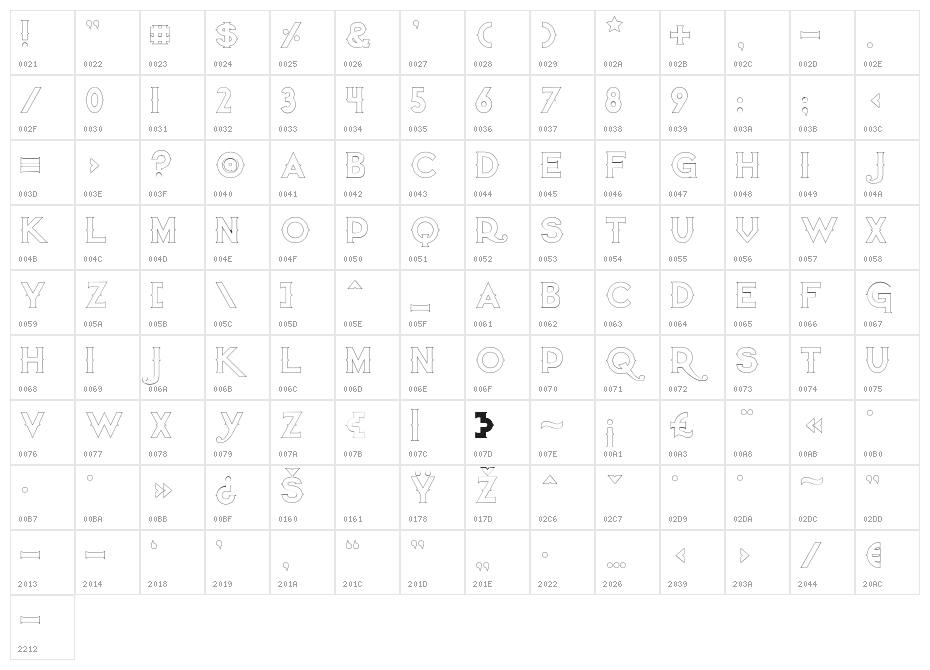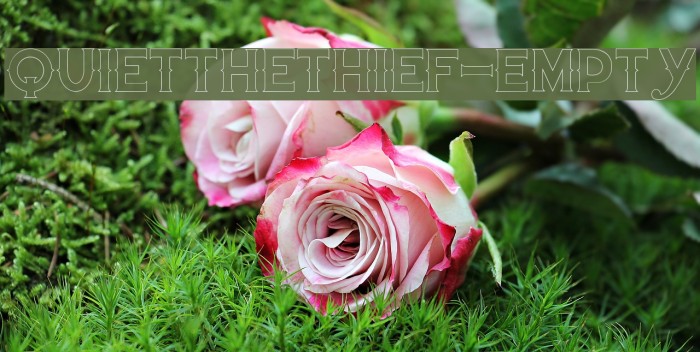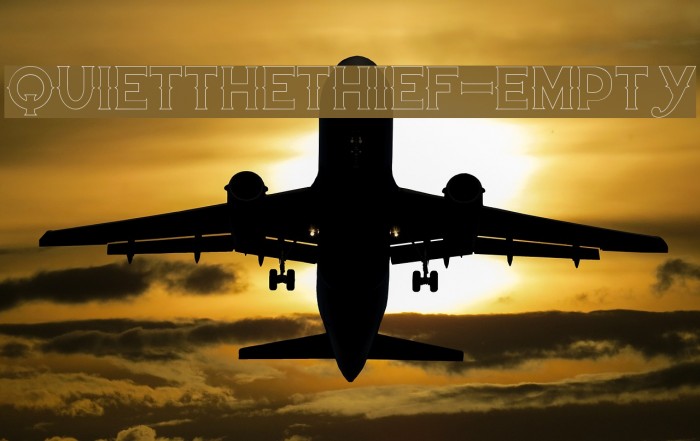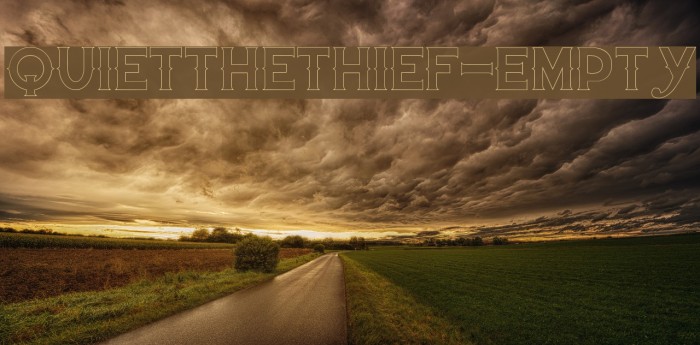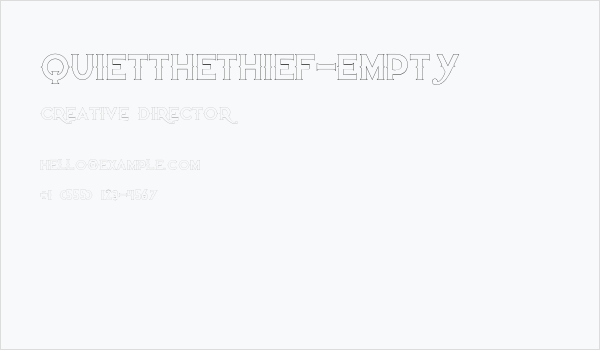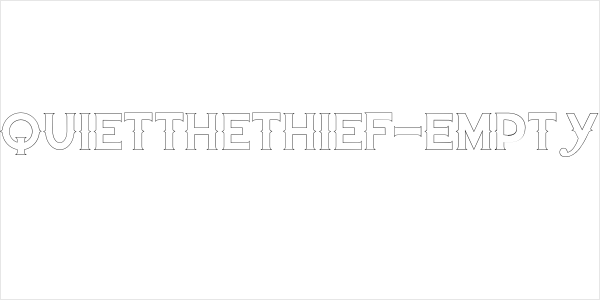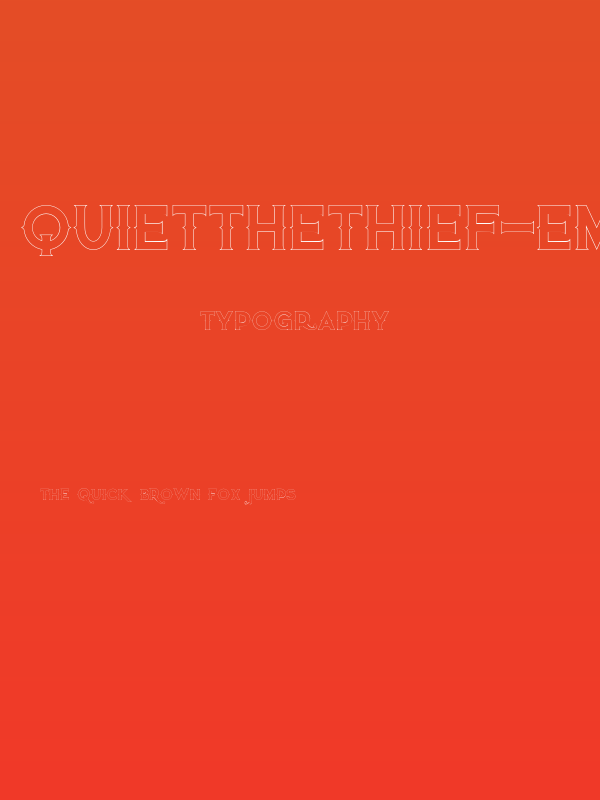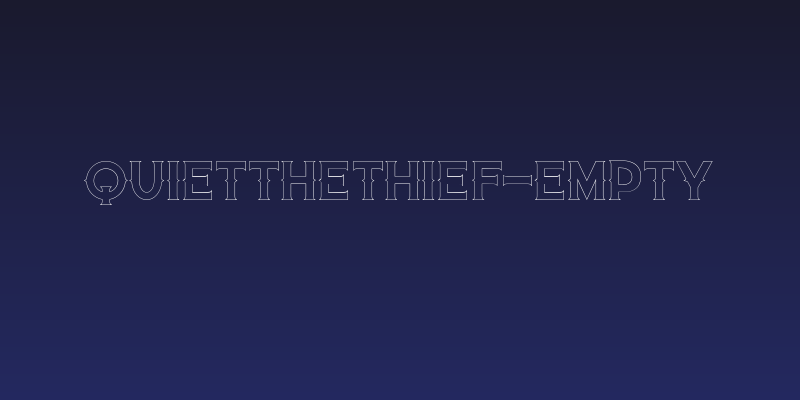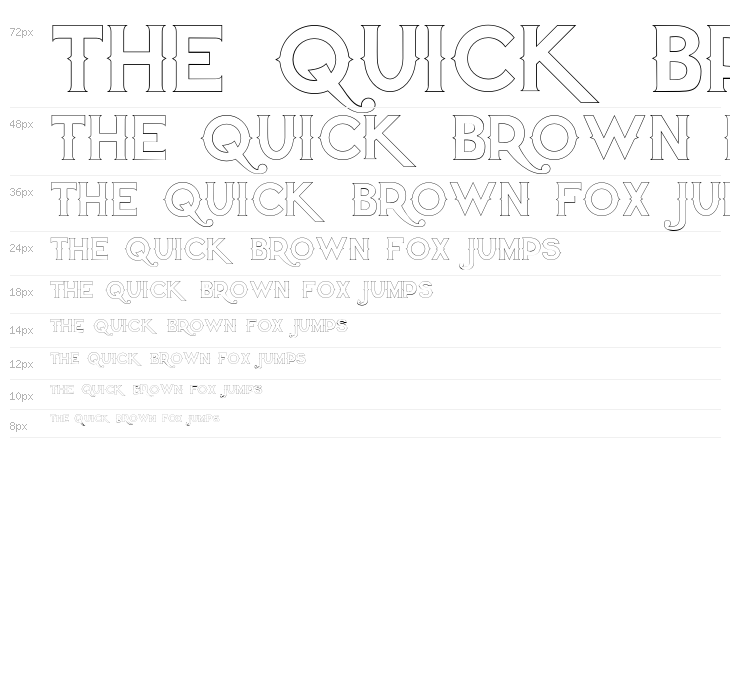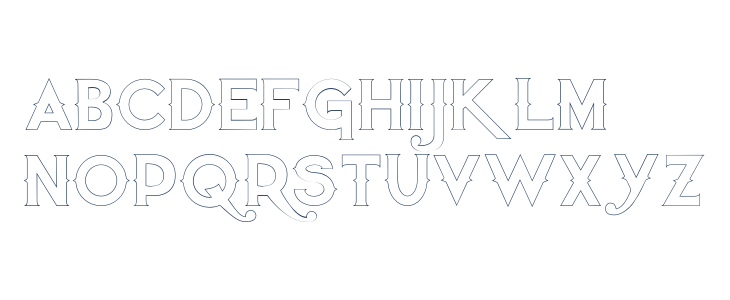
QuiettheThief-Empty Font
QuiettheThief-Empty Description
This font features a bold and geometric style with a distinct outline effect, giving it a modern and edgy appearance. The characters are uppercase and lowercase, with a consistent stroke width that creates a cohesive look. The numbers and special characters maintain the same stylistic elements, ensuring uniformity across all glyphs. The font's design is clean and structured, making it suitable for various design applications where a contemporary and striking visual impact is desired.
Proposed ProjectsIdeal for branding, poster design, headlines, and any project requiring a strong visual presence.